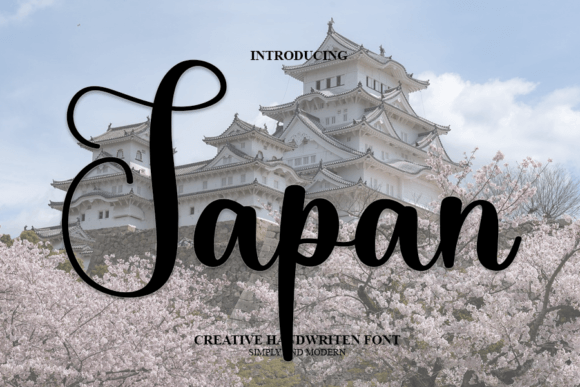
Dive into the world of exquisite calligraphy with the "Japan Font" – a stunning masterpiece that will transform your designs into breathtaking works of art. This elegant handwritten font, meticulously crafted by the talented artists at Ade Studio, is a true gem that will leave you spellbound with its charm and beauty.
Step into a realm of creative possibilities with the "Japan Font," a captivating script family that will add a touch of sophistication and individuality to your projects. Its graceful lines and playful characters will captivate your audience, making your messages stand out from the crowd. Whether you're crafting heartfelt letters, designing eye-catching invitations, branding your food products, or creating captivating titles, the "Japan Font" is your ultimate companion, ready to elevate your creations to new heights.
With its versatility and timeless appeal, the "Japan Font" is your passport to a world of endless possibilities. Let your imagination run wild as you explore the countless ways to incorporate this exquisite font into your designs. Its delicate strokes and flowing curves will bring a sense of elegance and refinement to your projects, leaving a lasting impression on your audience.
Whether you're a seasoned designer seeking a new muse or a novice just starting your creative journey, the "Japan Font" is the perfect choice for you. Its user-friendly nature makes it accessible to all, allowing you to unleash your creativity without any technical hurdles. Embrace the beauty of handwritten artistry and let the "Japan Font" guide you toward design excellence.